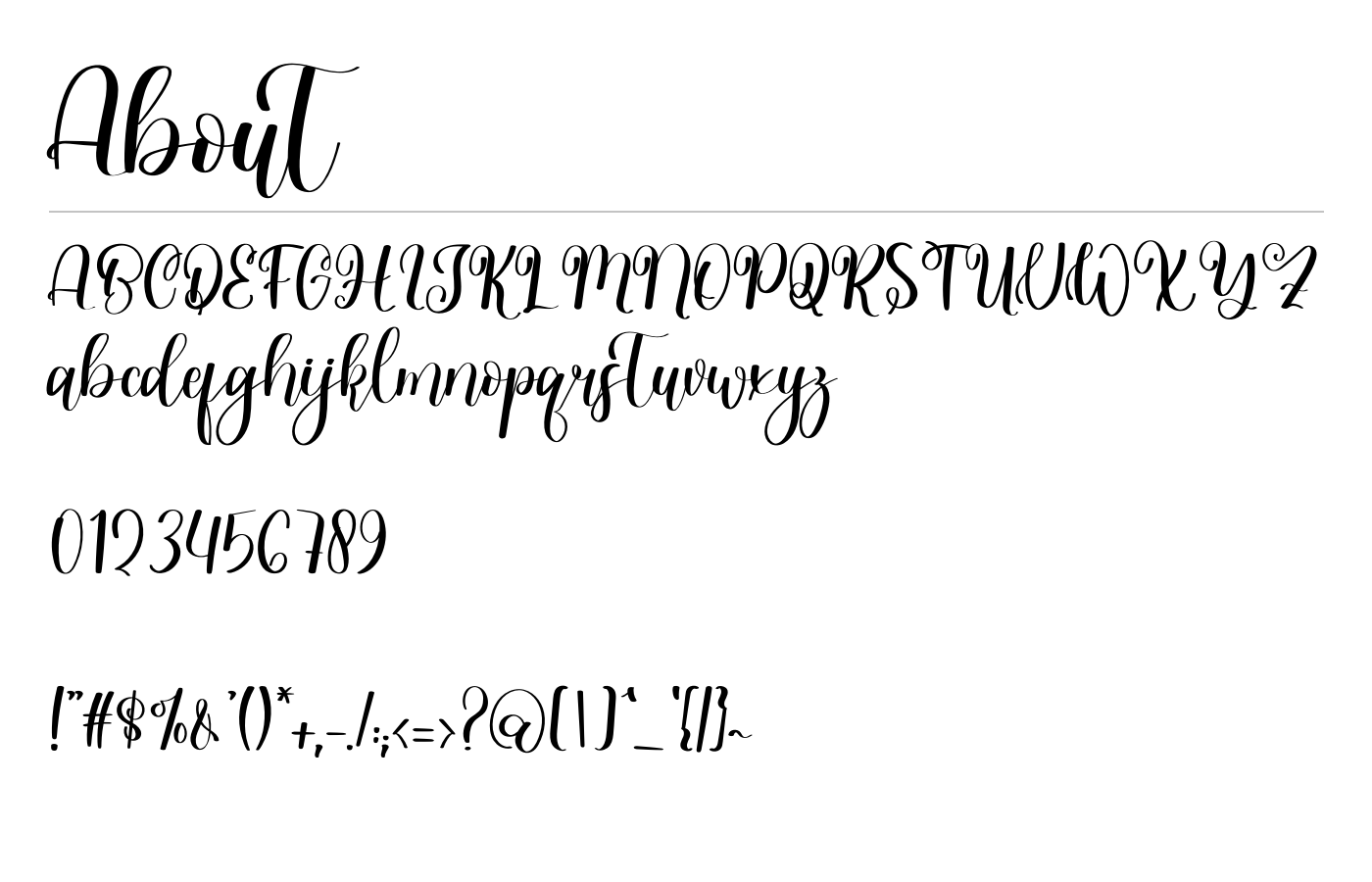
About Font is a stylish script typeface featuring elegant, flowing letterforms with a medium contrast between thick and thin strokes. Its tall x-height and delicate swashes give it a graceful, modern feel that works beautifully for invitations, branding, and creative headlines. This font brings a touch of sophistication and charm, making it ideal for fashion, luxury, and feminine design projects.
About Font